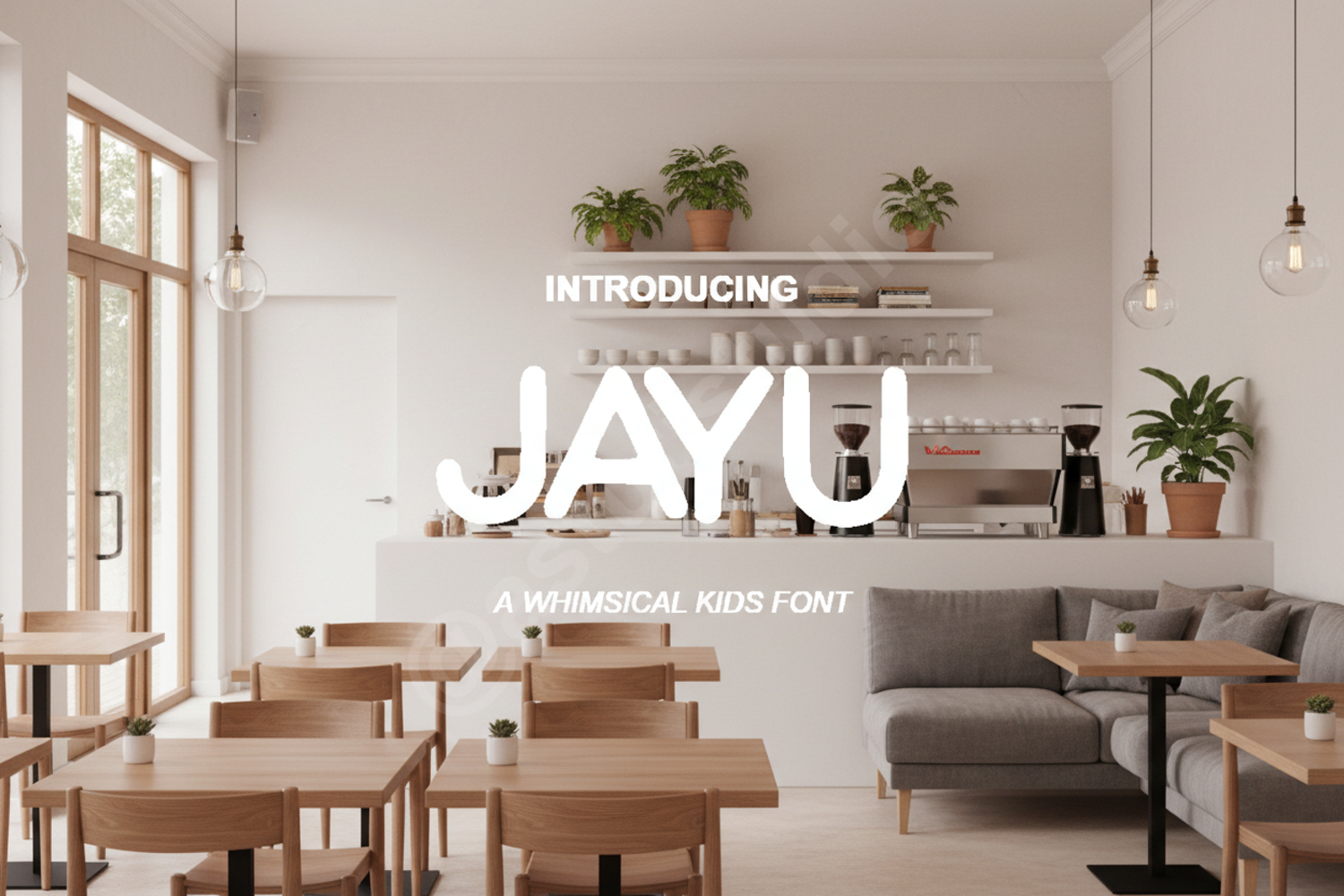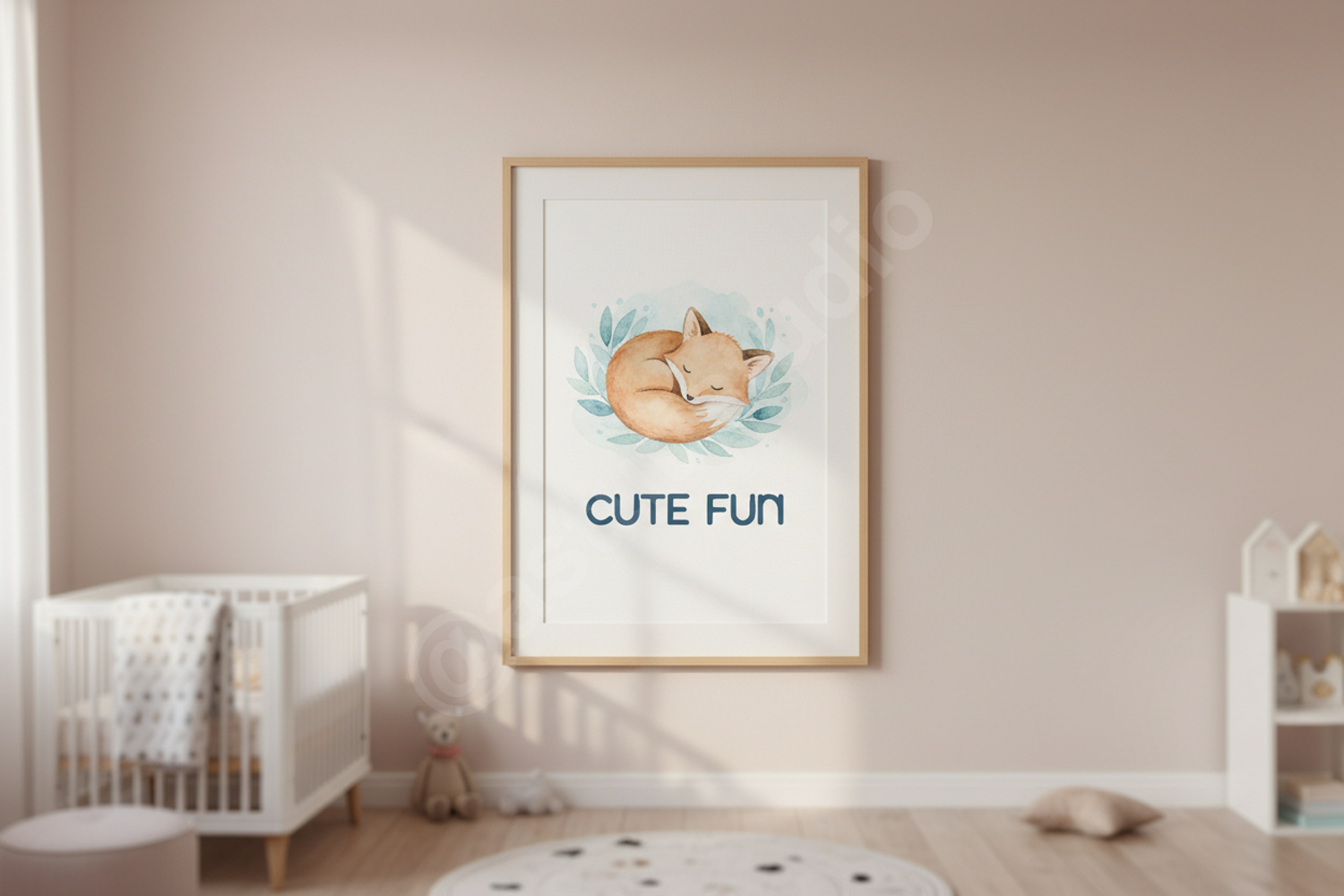
Jayu - Modern Minimalist Sans Serif Typeface
Jayu
Jayu is a premium sans serif font that embodies the essence of modern simplicity and sophisticated design. Crafted with clean lines and balanced proportions, Jayu offers a timeless aesthetic that ensures your projects look professional and polished. Whether you are aiming for a high-end editorial look or a sleek digital interface, this versatile typeface adapts seamlessly to your creative vision.
- Full uppercase and lowercase character sets
- Branding and Identity: Create memorable logos and cohesive brand guidelines.
- Editorial Design: Perfect for magazine layouts, book covers, and headers.
- Digital Marketing: Elevate social media graphics and website typography.
- Luxury Packaging: Add a touch of elegance to product labels and boxes.
- Professional Presentations: Ensure clarity and style in corporate decks.